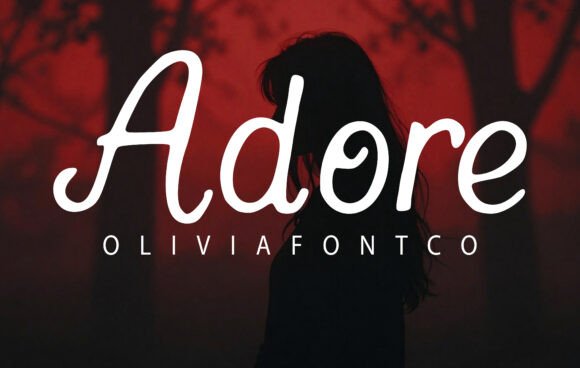
Adore Font: Elevating Digital Campaigns with Modern Script
In the fast-paced world of digital marketing, capturing attention within a fraction of a second is the ultimate challenge. As content creators and brand strategists, we understand that typography is not merely decorative; it is a primary vehicle for communication and emotional connection. The Adore font serves as a powerful tool in this visual arsenal, offering a sophisticated monoline script that bridges the gap between high-end elegance and approachable modernity. For marketers designing scroll-stopping visuals, this typeface provides the distinct personality needed to cut through noisy social feeds while maintaining professional readability.
Defining the Visual Voice of Adore
Adore is characterized by its smooth, continuous flow and balanced proportions, distinguishing it from chaotic or overly ornate handwritten fonts. As a premium display font within the Script Amp category, it exudes romance without sacrificing clarity. This specific visual mood is critical for brands aiming to project warmth, authenticity, and refined style. Unlike traditional calligraphy that can feel dated or difficult to decipher on small screens, Adore’s modern construction ensures that the message remains accessible even when scaled down for mobile previews or thumbnail images.
The monoline weight distribution creates a sense of stability and consistency, which is essential for building brand recognition. When audiences encounter your content across various touchpoints—from Instagram Stories to email newsletters—the uniform stroke width of Adore reinforces a cohesive visual identity. It suggests a brand that is thoughtful and curated, rather than haphazard. This psychological cue helps establish trust and engagement before the viewer even processes the literal text.
Strategic Applications Across Digital Platforms
Versatility is key for any creative font added to a marketing team's asset library. Adore excels in environments where emotional resonance drives conversion. Its aesthetic makes it particularly effective for lifestyle branding, beauty campaigns, wedding services, artisanal products, and personal coaching niches. However, its clean lines also allow it to function effectively in more corporate contexts when used as an accent to soften rigid brand guidelines.
- Social Media Graphics: Use Adore for headline overlays on Instagram carousels or Pinterest pins. The script draws the eye immediately, signaling that the content is curated and valuable.
- YouTube Thumbnails: In a sea of bold sans serif text, a touch of Adore can differentiate your video. It works exceptionally well for vlogs, tutorials, or storytelling content where a personal connection is paramount.
- Email Marketing Headers: Replace generic header images with typography-led designs using Adore to increase open rates and set a welcoming tone for newsletters.
- Digital Advertising: For Facebook and Instagram ads promoting seasonal sales or product launches, Adore adds a layer of sophistication that elevates the perceived value of the offer.
- Website Banners: Utilize the typeface in hero sections to create an immediate emotional hook, guiding users toward calls to action with a sense of graceful urgency.
Optimizing Readability and Visual Hierarchy
A beautiful font fails if it cannot be read. From a performance marketing perspective, legibility directly correlates to engagement metrics. Adore is designed with digital consumption in mind, but strategic application is still required. Because it is a script font, it should primarily serve as a display element for short phrases, titles, signatures, or emphasis words rather than body copy. Attempting to use Adore for long paragraphs will degrade the user experience and hurt accessibility.
To maximize impact, leverage size contrast. Make the Adore headline significantly larger than supporting text to create a clear entry point for the eye. On mobile devices, where screen real estate is limited, ensure there is adequate padding around the letterforms. Tight tracking or overlapping swashes can become muddy on smaller displays. Testing your graphics at actual viewing size is a non-negotiable step in the quality assurance process. If the Adore text requires squinting to decode, simplify the layout or increase the font weight.
Mastering Font Pairing for Brand Consistency
Adore shines brightest when paired correctly. The goal is to create tension and balance. For most digital campaigns, combining Adore with a clean, geometric sans serif font like Montserrat, Open Sans, or Helvetica is the safest and most effective strategy. The structured neutrality of the sans serif grounds the fluidity of the script, ensuring that informational text remains highly readable while Adore handles the emotional heavy lifting.
For editorial design, luxury packaging, or high-fashion web design, pairing Adore with a classic serif font can evoke a timeless, magazine-quality aesthetic. This combination signals heritage and prestige. Avoid pairing Adore with other decorative or handwritten fonts, as this creates visual competition and confuses the hierarchy. Let Adore be the singular star of the typographic composition, supported by utilitarian workhorse typefaces for captions, buttons, and disclaimers.
Ultimately, Adore is more than just a collection of vector points; it is a strategic communication device. By understanding its strengths in readability, emotional resonance, and platform-specific application, marketers can transform standard graphics into memorable brand experiences. Whether you are designing a Reel cover, a landing page, or a seasonal campaign, integrating this modern script typeface allows you to speak to your audience with a voice that is both visually arresting and authentically engaging.